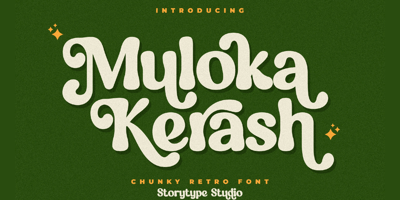
Muloka Kerash Font Family was designed by Heru Utama Putra and published by Letterena Studios. Muloka Kerash contains 2 styles and family package options. Muloka Kerash is a fun and stylish serif font. With a nice retro vibe, this font is suitable for a wide range of design ideas. Add it confidently to your projects and you will be amazed by the outcome generated!